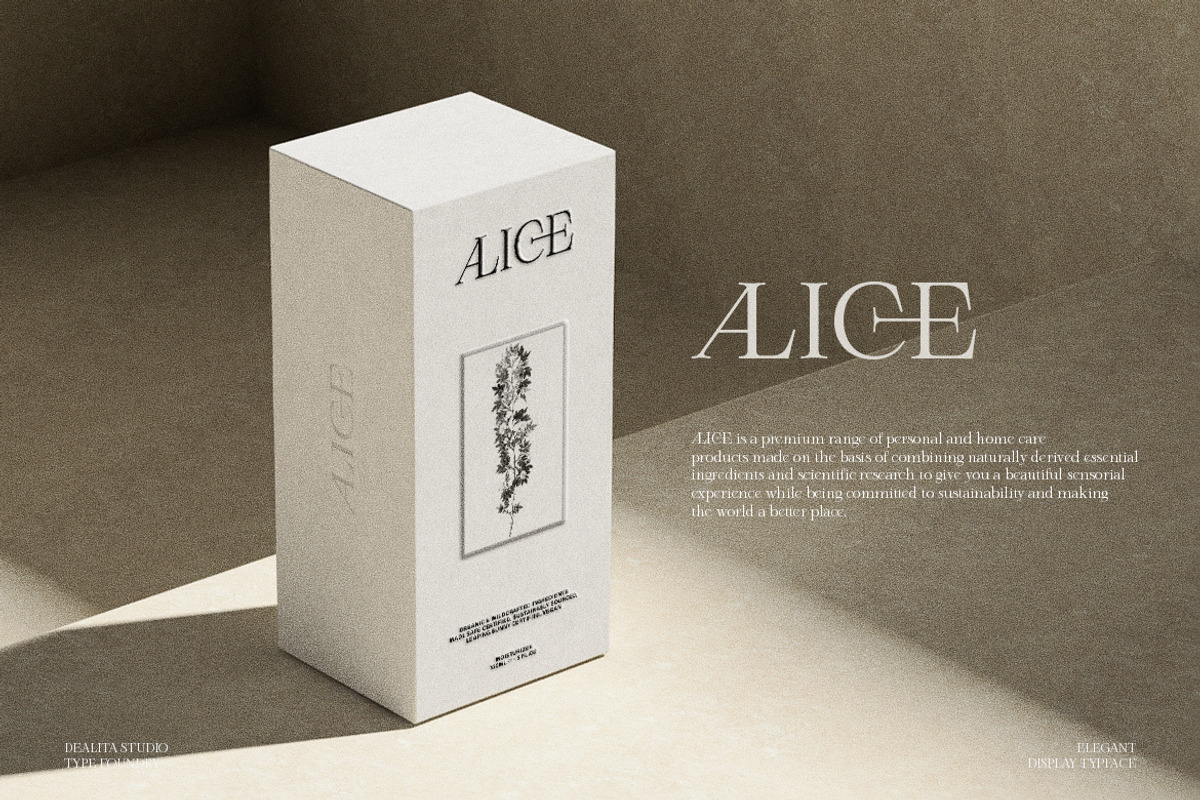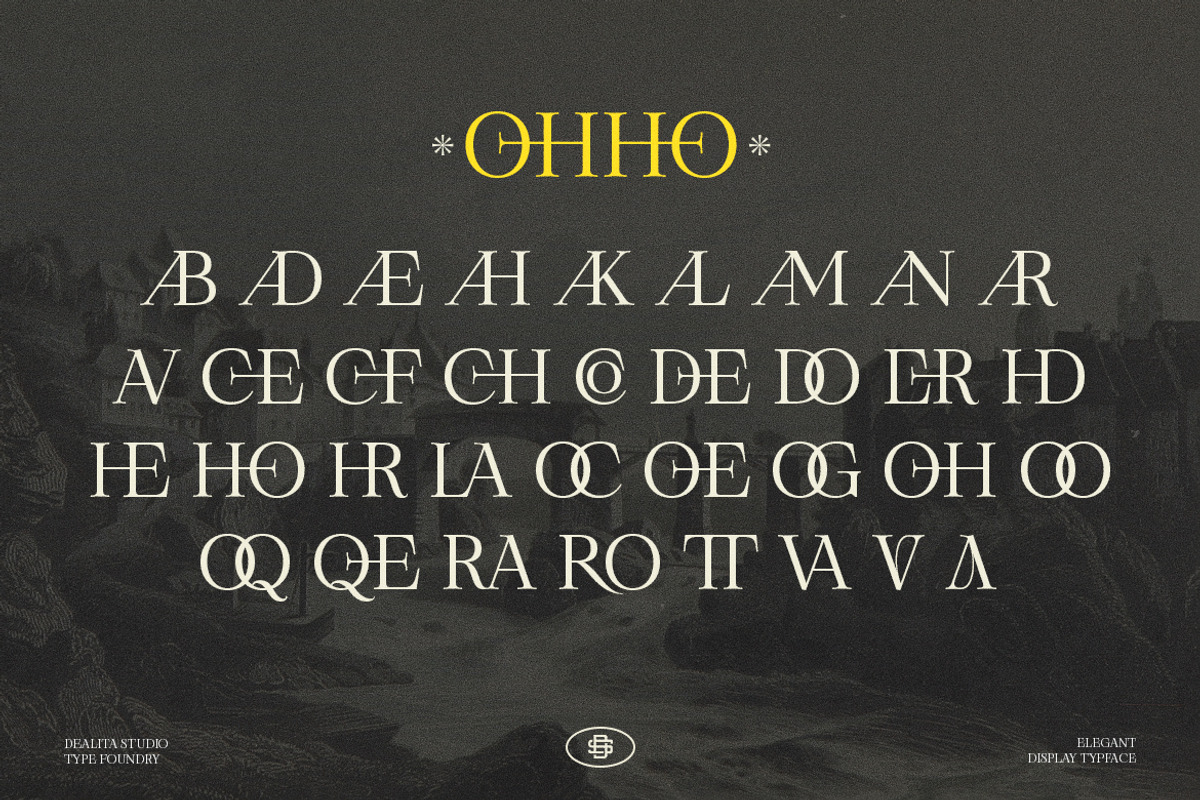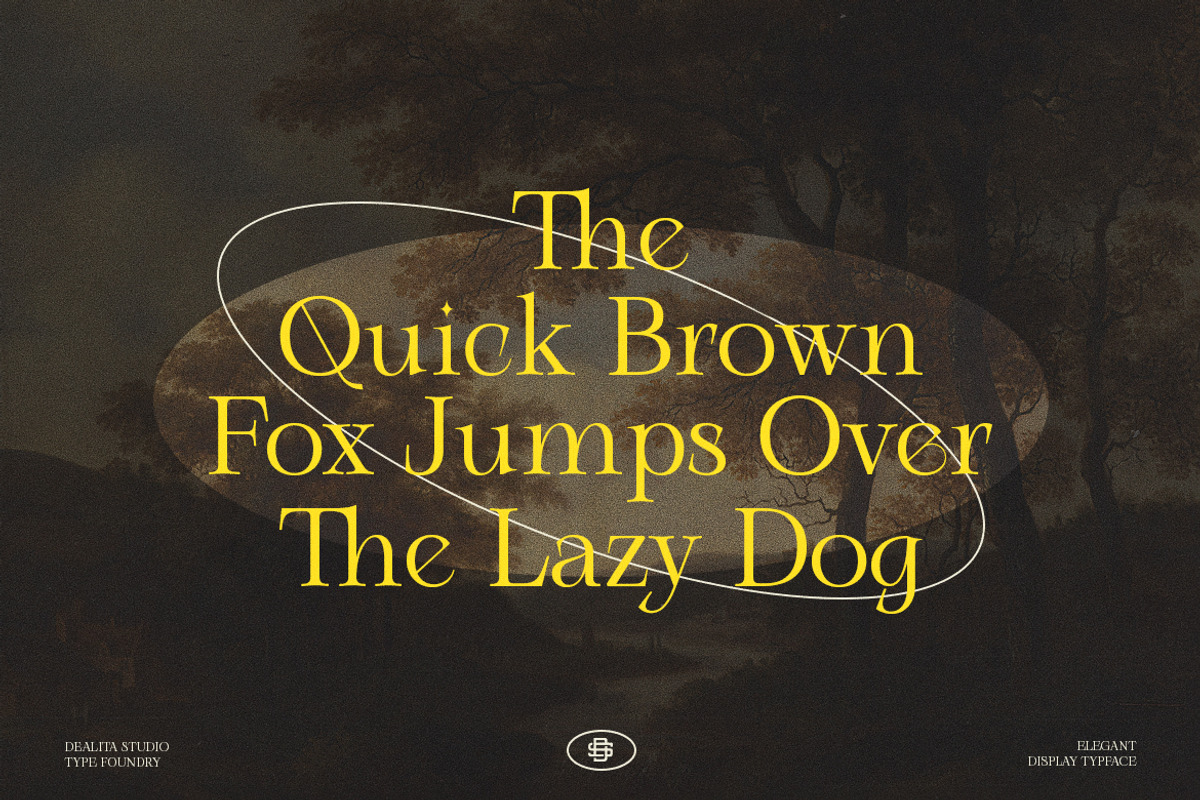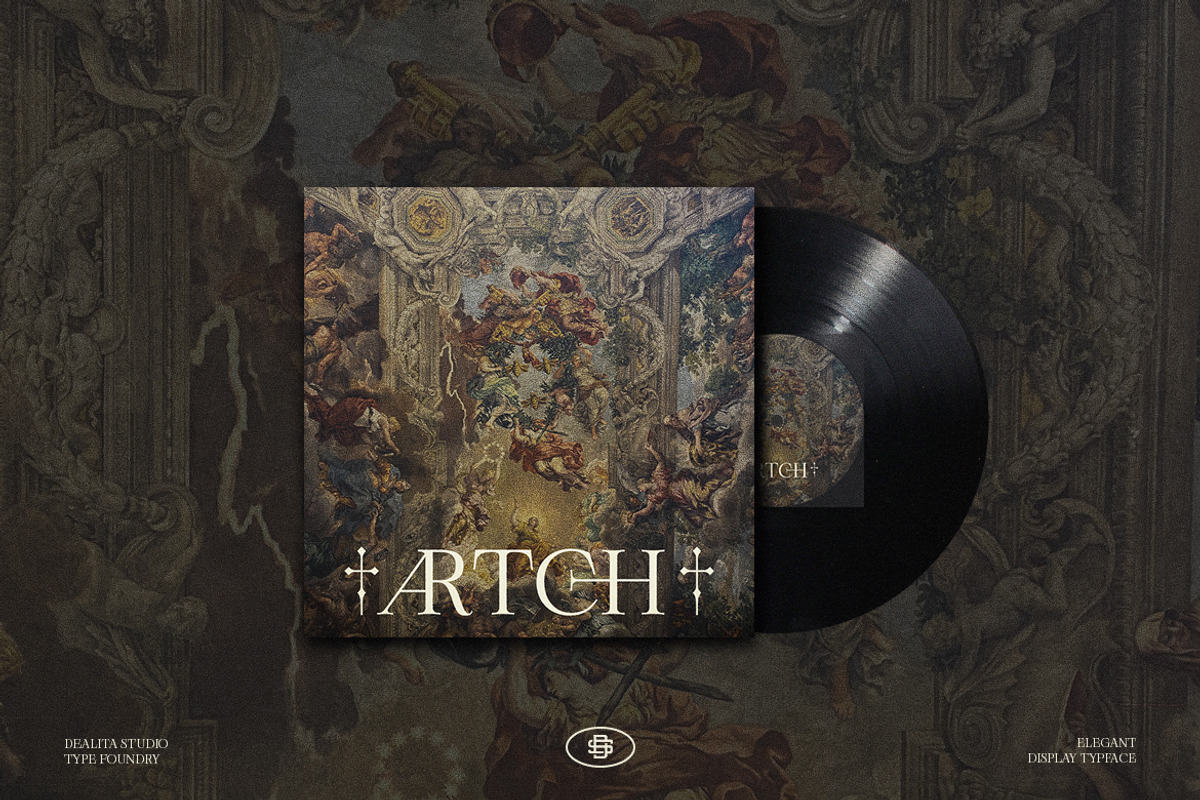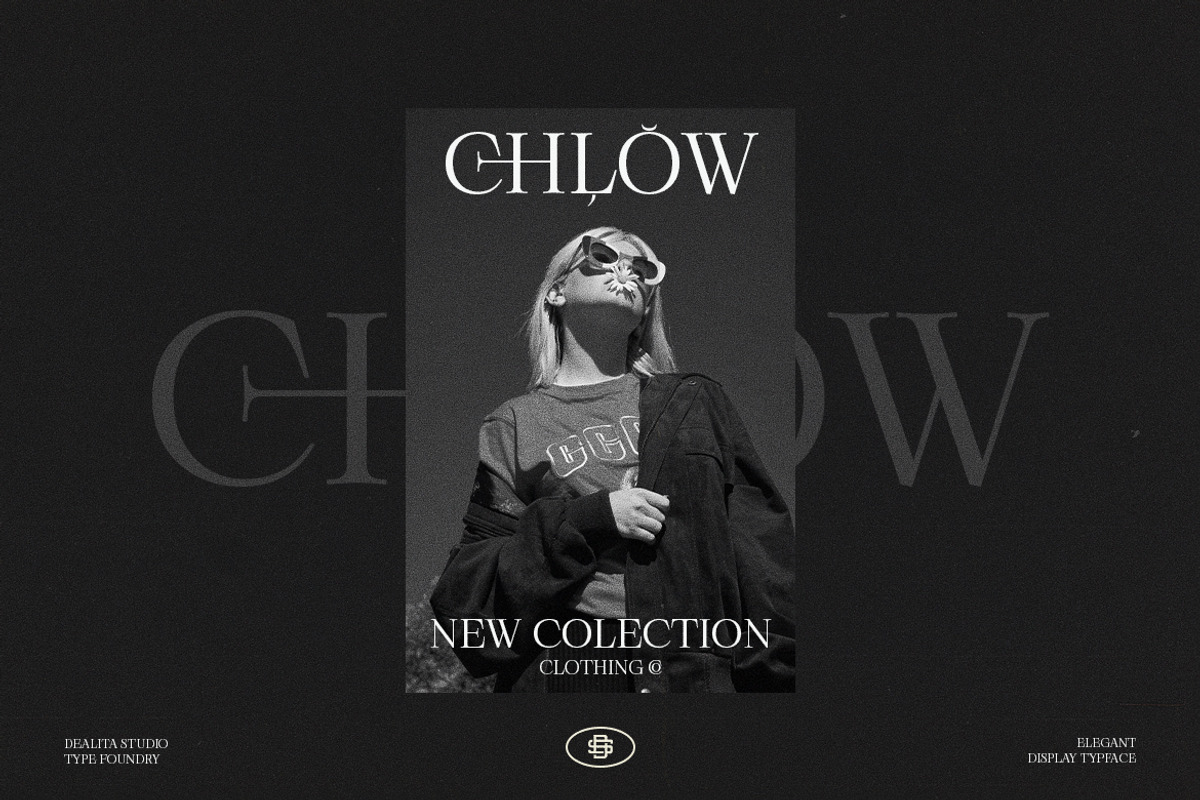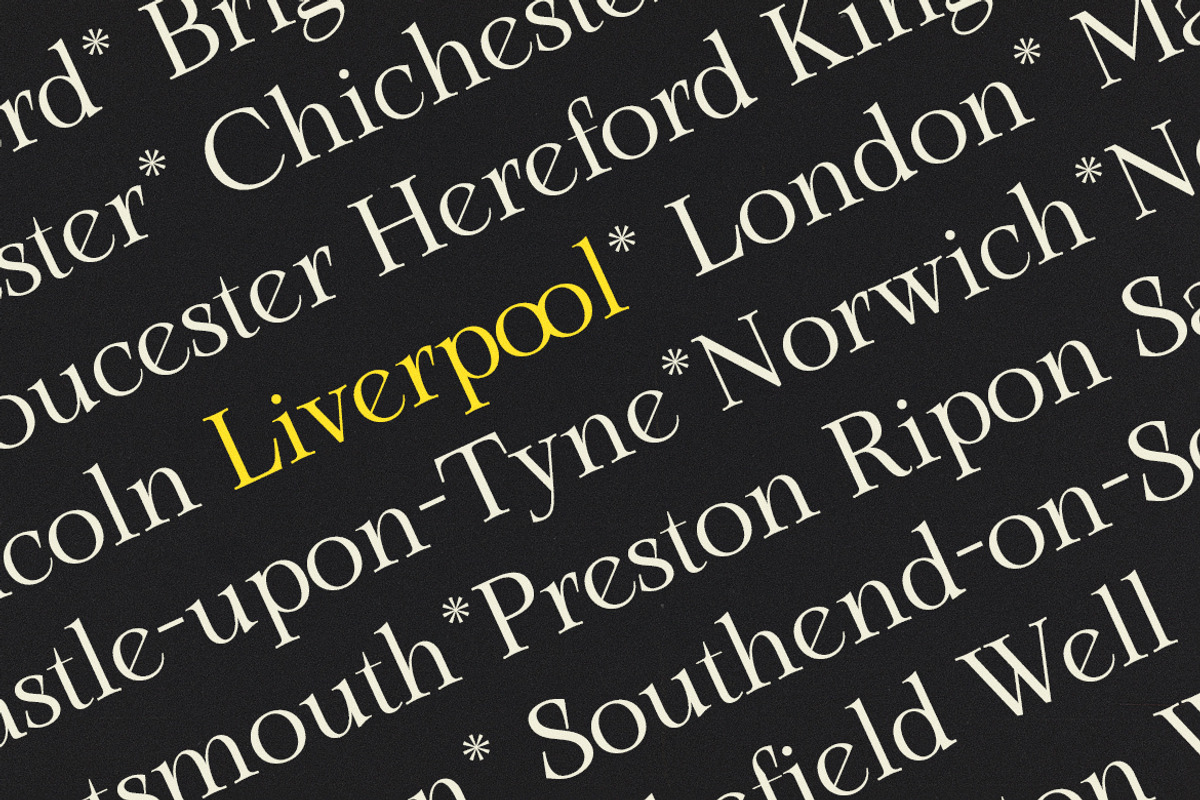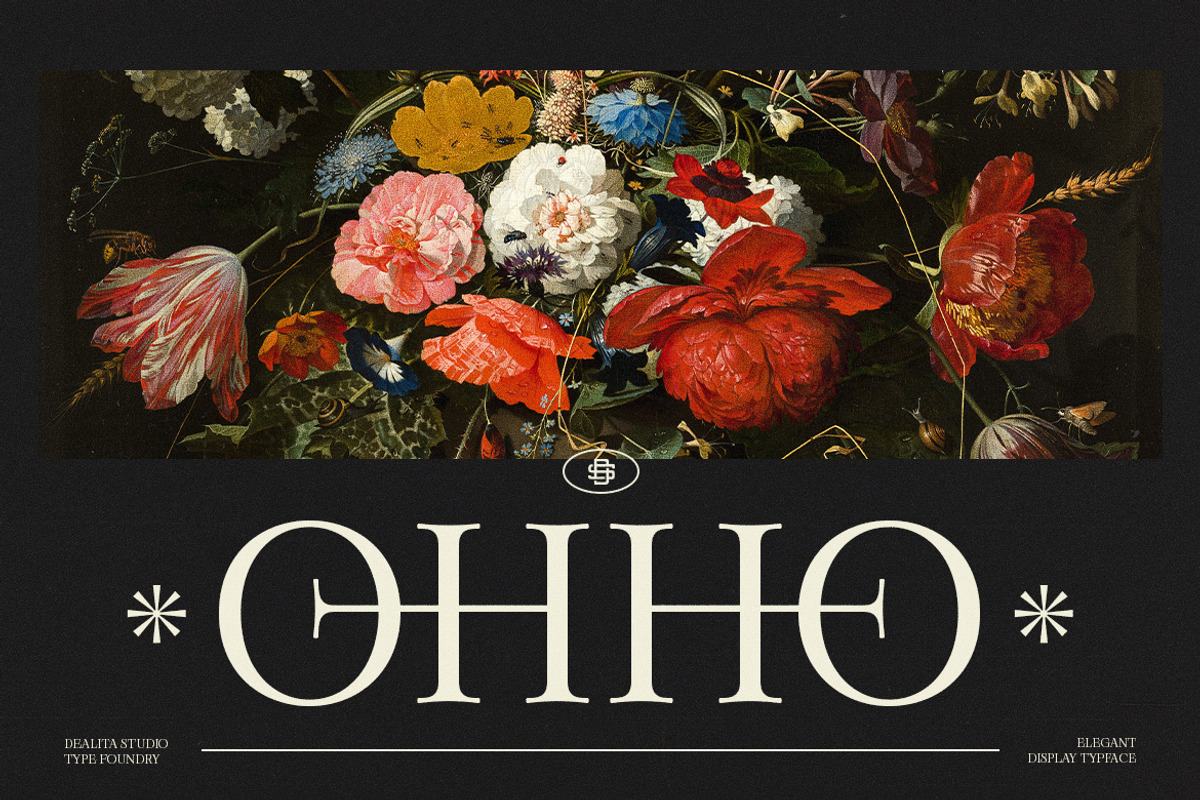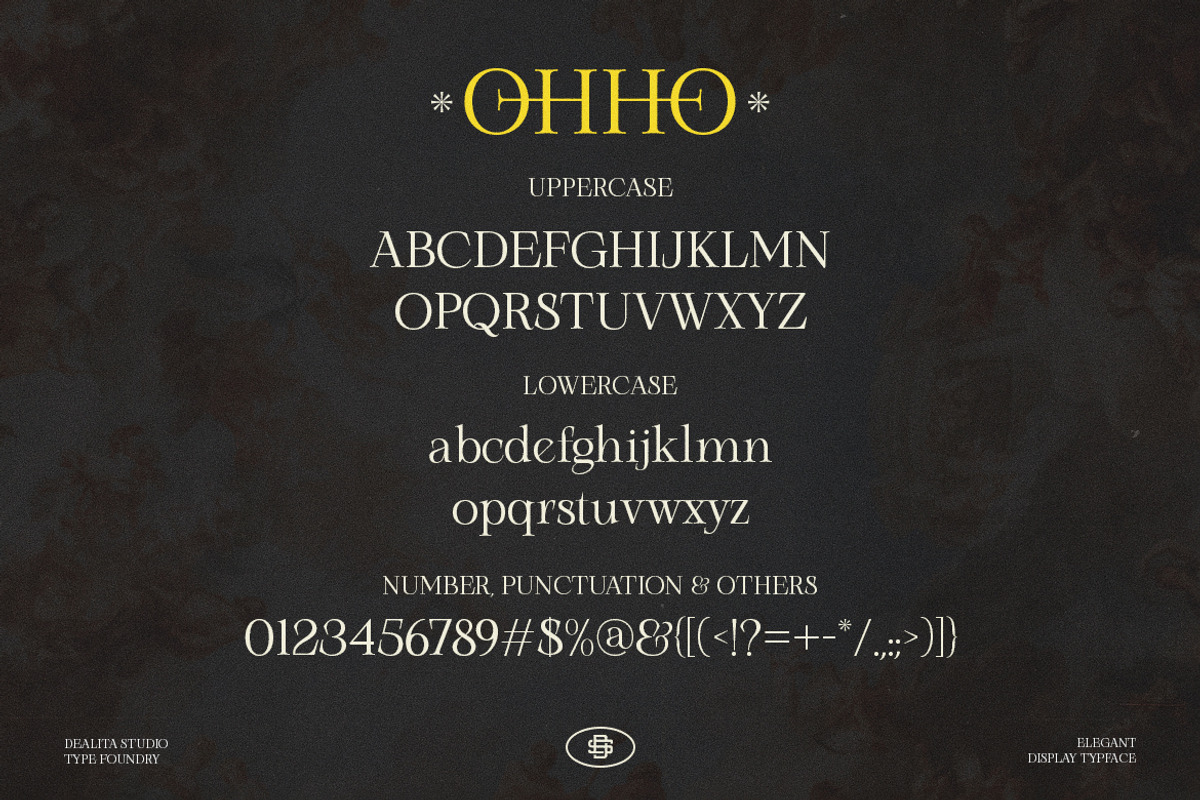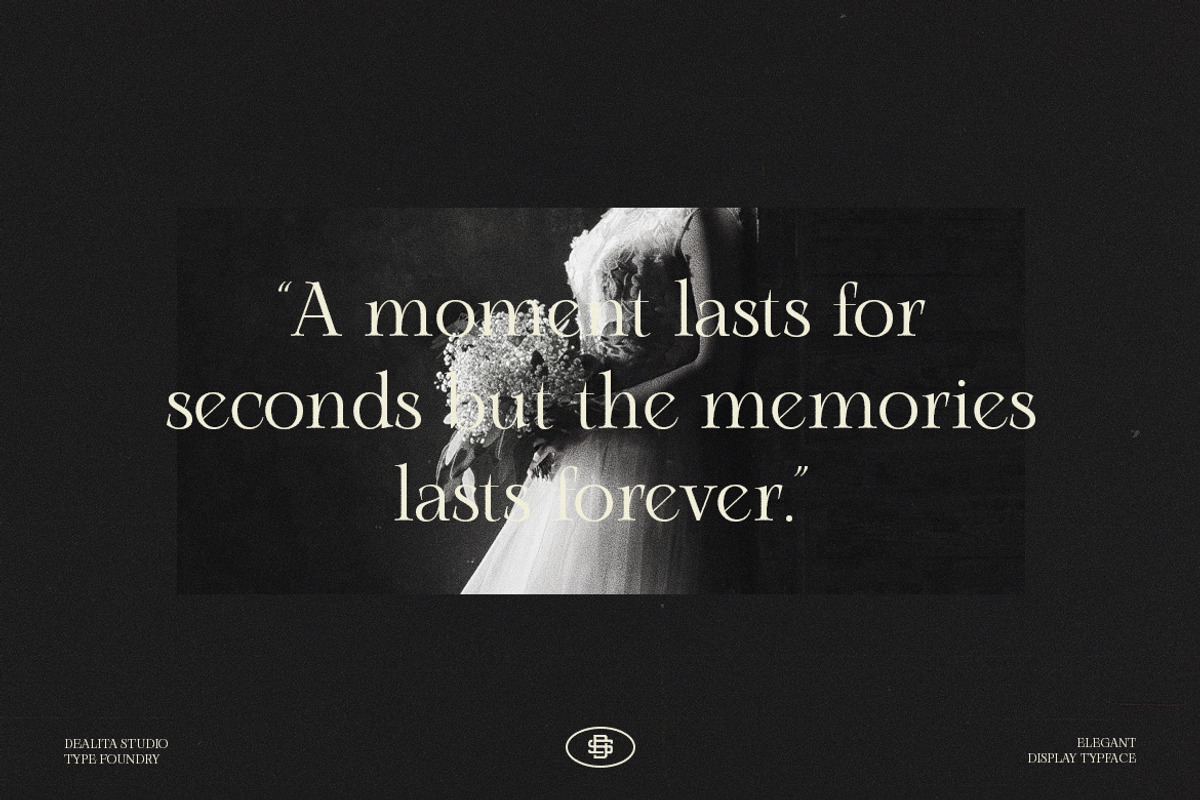
OHHO - Modern Fashion Serif
OHHO — Modern Fashion Serif
OHHO is a high-fashion elegant serif engineered for sophisticated visual identity and modern editorial design. Featuring sleek, stylish extras and a contemporary structure, it’s the definitive choice for luxury logos, premium packaging, and high-end magazine layouts.
Best For:
- High-Fashion Editorial & Magazines
- Luxury Makeup & Beauty Branding
- Modern Wedding Stationery
- Sleek Logo Design & Apparel
Technical Specs:
- Modern Elegant Serif Design
- Stylized Alternates & Ligatures